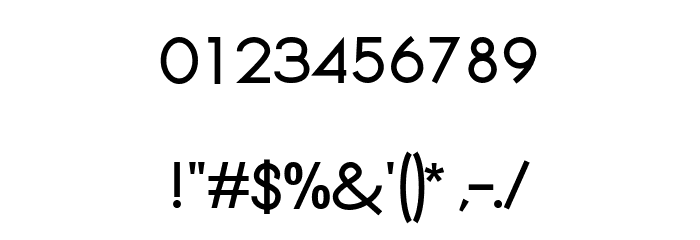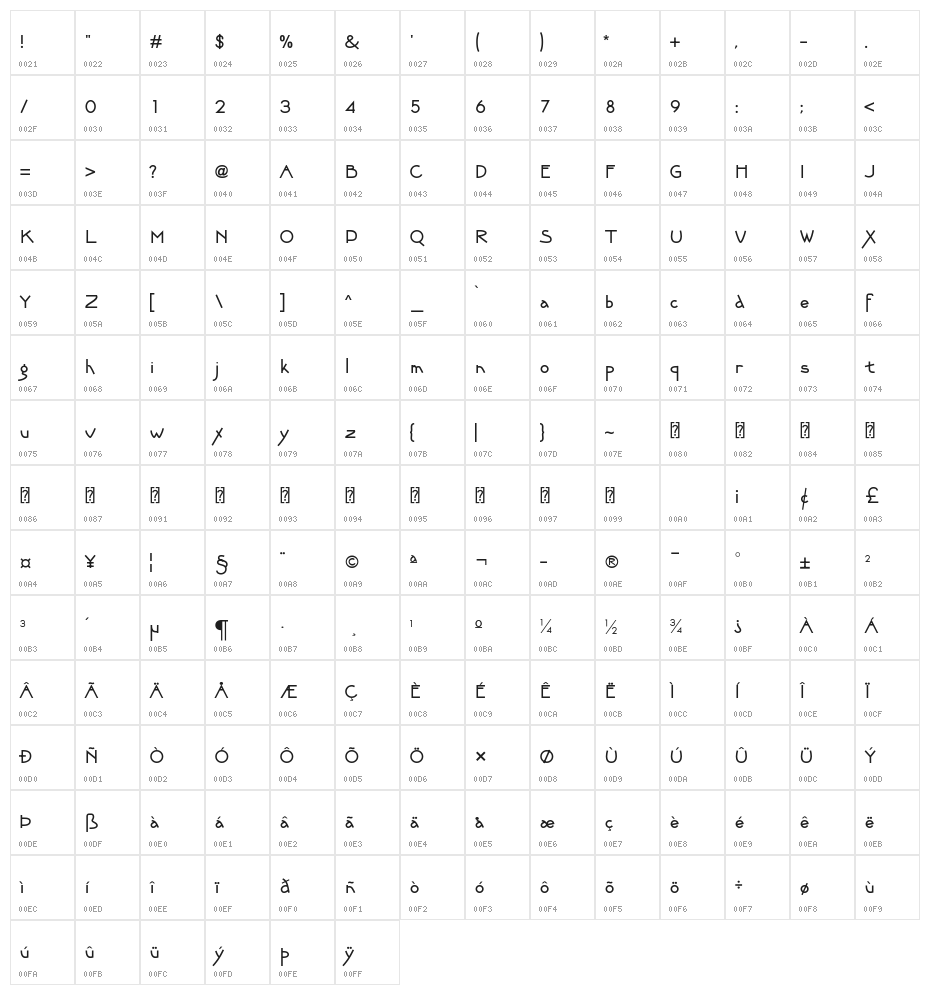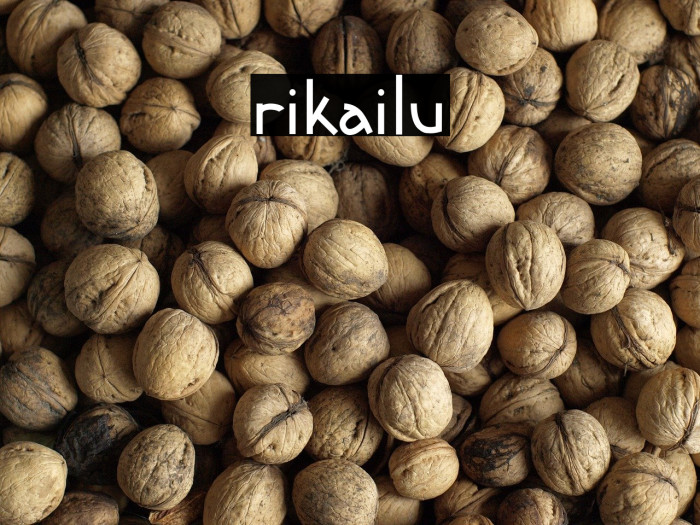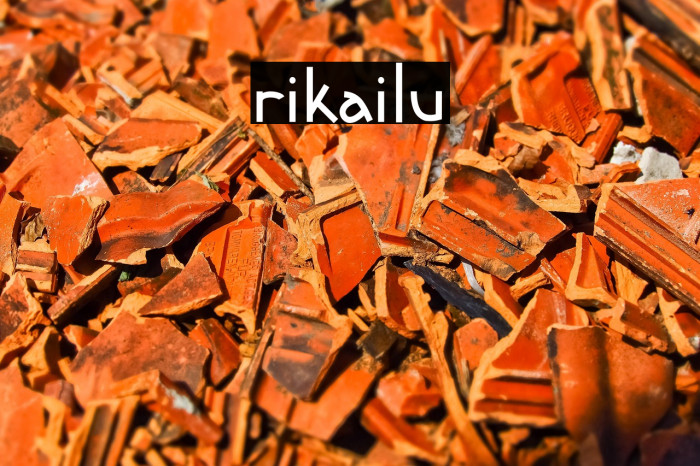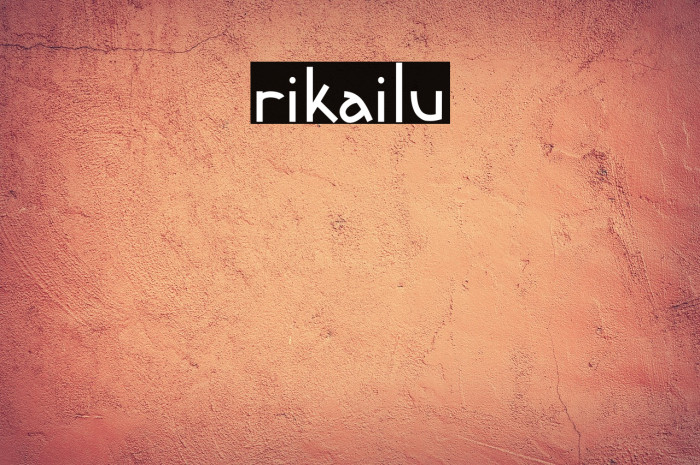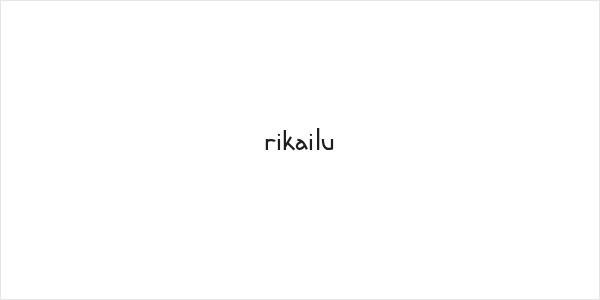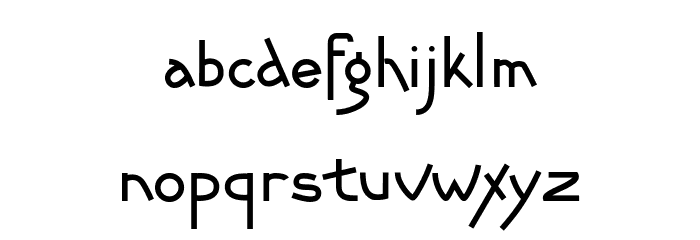
rikailu Font
rikailu Description
This font features a playful and quirky design, characterized by its unique and slightly irregular letterforms. The uppercase letters are bold and distinct, with some characters featuring unexpected angles and curves that add a whimsical touch. The lowercase letters maintain this playful style, with certain letters like 'e' and 'g' having distinctive loops and strokes. The numerals are consistent with the overall style, offering a cohesive look. Special characters are included, maintaining the font's unique aesthetic. This font is ideal for projects that require a fun and informal vibe, such as children's books, playful branding, or creative posters.
| Overall Style | Playful, Quirky |
| Proposed Projects | Children's books, playful branding, creative posters, informal invitations. |